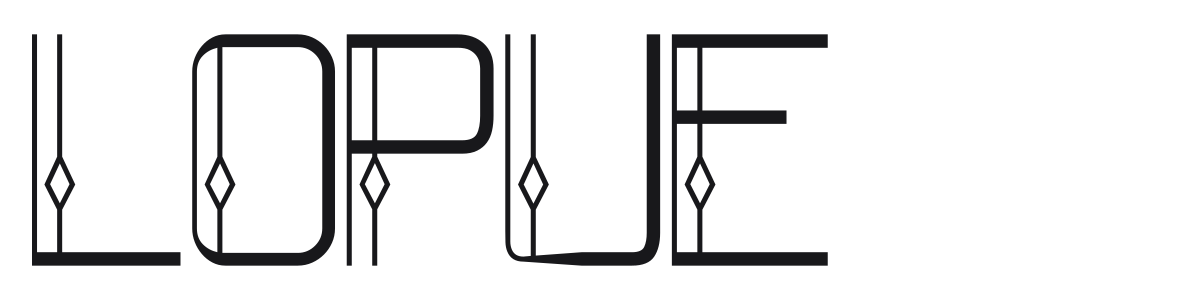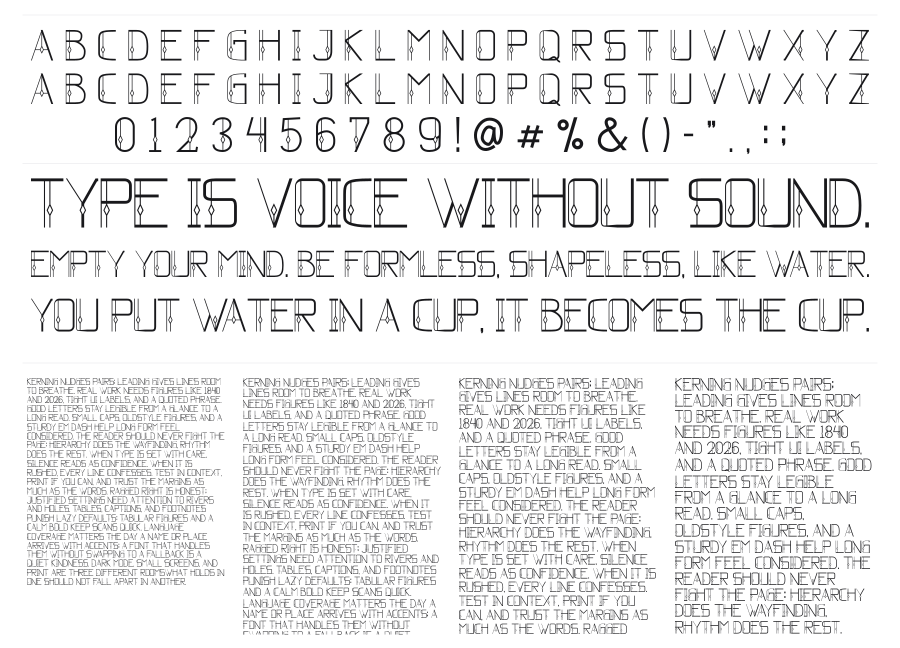
Lopue
Lopue is a condensed Art Deco display font built from thin geometric strokes with inline vertical rules and diamond-shaped ornaments punctuating the stems. The design draws directly from 1920s–30s architectural lettering, where decoration and structure were inseparable. It works at large sizes where its fine detailing can breathe.